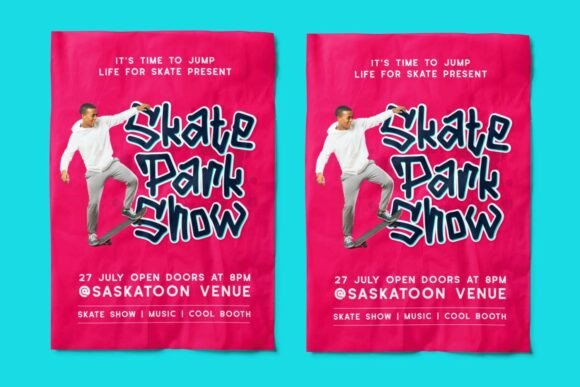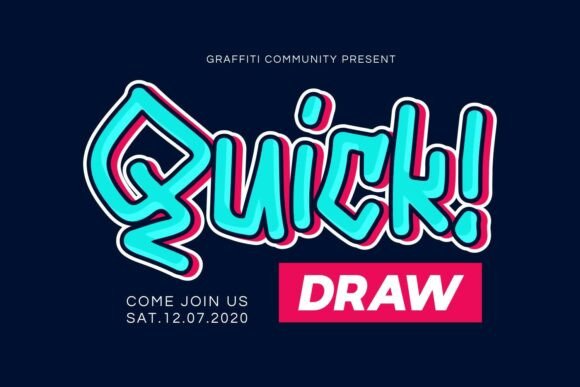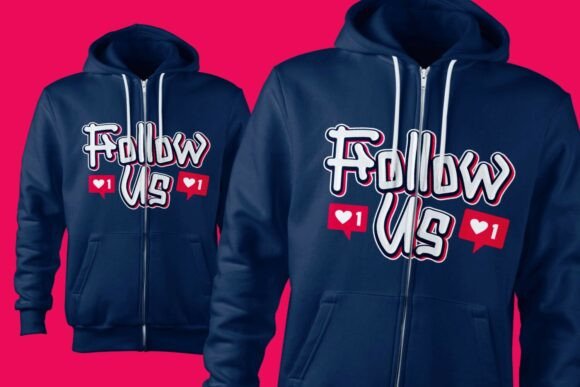
Introduction to Rotundo Font
Remember the rush of creating your first design project? The thrill of combining the perfect fonts, colors, and textures to bring your vision to life? For many designers, that moment is a defining experience that fuels their passion for creative expression. It’s the spark that drives them to experiment with new styles, push boundaries, and explore the endless possibilities of visual communication.
For those who crave that same excitement, we have a design resource that’s sure to ignite your creativity: the Rotundo Font. This energetic graffiti display font is the perfect tool for designers who want to add attitude and street-smart flair to their projects.
Key Features of Rotundo Font
- The font’s unique characteristics, including its rounded edges and elegant curves, make it a standout design resource.
- Suitable for use in various design contexts, including logos, typography, and creative projects, due to its versatility and high-quality design.
Honest Review: Rotundo Font
I recently had the chance to work with the Rotundo Font, and I must say it’s been a game-changer for my creative project. The high quality of this font is truly impressive, and I’ve been using it extensively for my design work.
Here are some things that work well for me:
- ✨ The font’s elegant and sophisticated design makes it perfect for creating a professional look and feel.
- ⚠️ The font may not be ideal for use in situations where a bold, attention-grabbing font is needed.
- ⚠️ The font family is relatively small, which may limit its versatility for certain design projects.
Overall, I’m thoroughly impressed with the Rotundo Font. It’s a solid design resource that has been a valuable addition to my toolkit. If you’re looking for a high-quality font for your creative project, I highly recommend giving it a try.
Getting the Most Out of Rotundo Font
To get the most out of the Rotundo Font, use it in conjunction with other high-quality design resources to create a cohesive look for your creative project. Experiment with different font sizes, styles, and colors to add visual interest and depth to your design.
The Rotundo Font is commonly used in design projects that require a elegant and sophisticated look, such as wedding invitations, business cards, and marketing materials. Its high-quality and transparent background make it an ideal choice for designers looking for a reliable design resource.
Alternatives to Rotundo Font
Q: Is the Rotundo Font suitable for high-resolution printing?
Yes, the Rotundo Font is designed to be suitable for high-resolution printing. The font has been optimized for print use, ensuring that it looks great on paper or other print materials. However, please note that the quality of the print will also depend on the printing equipment and settings used.